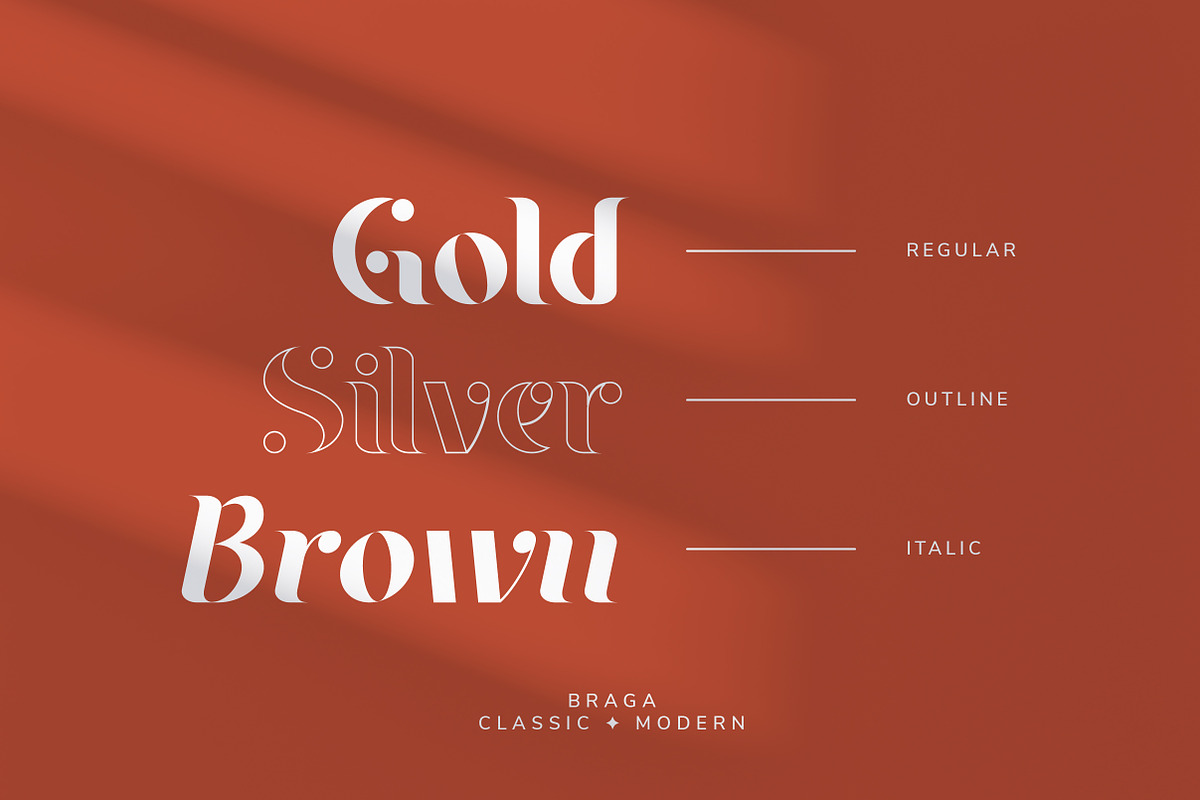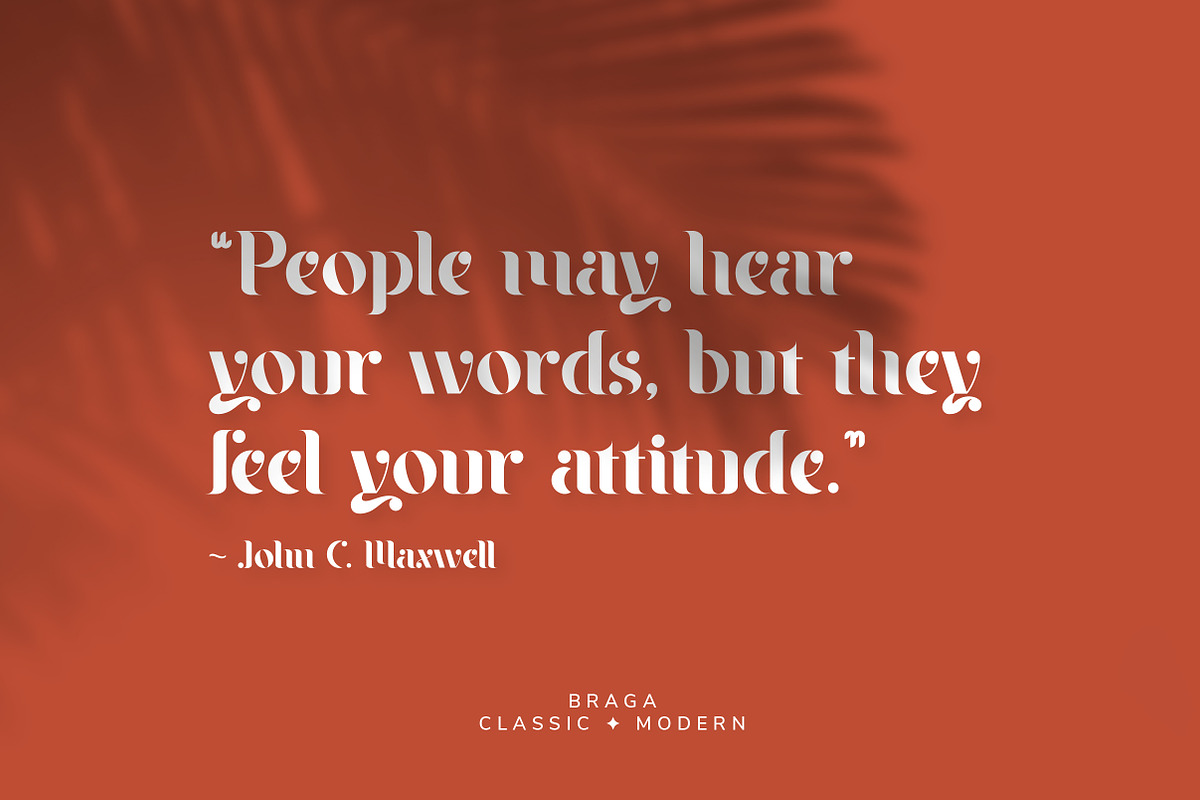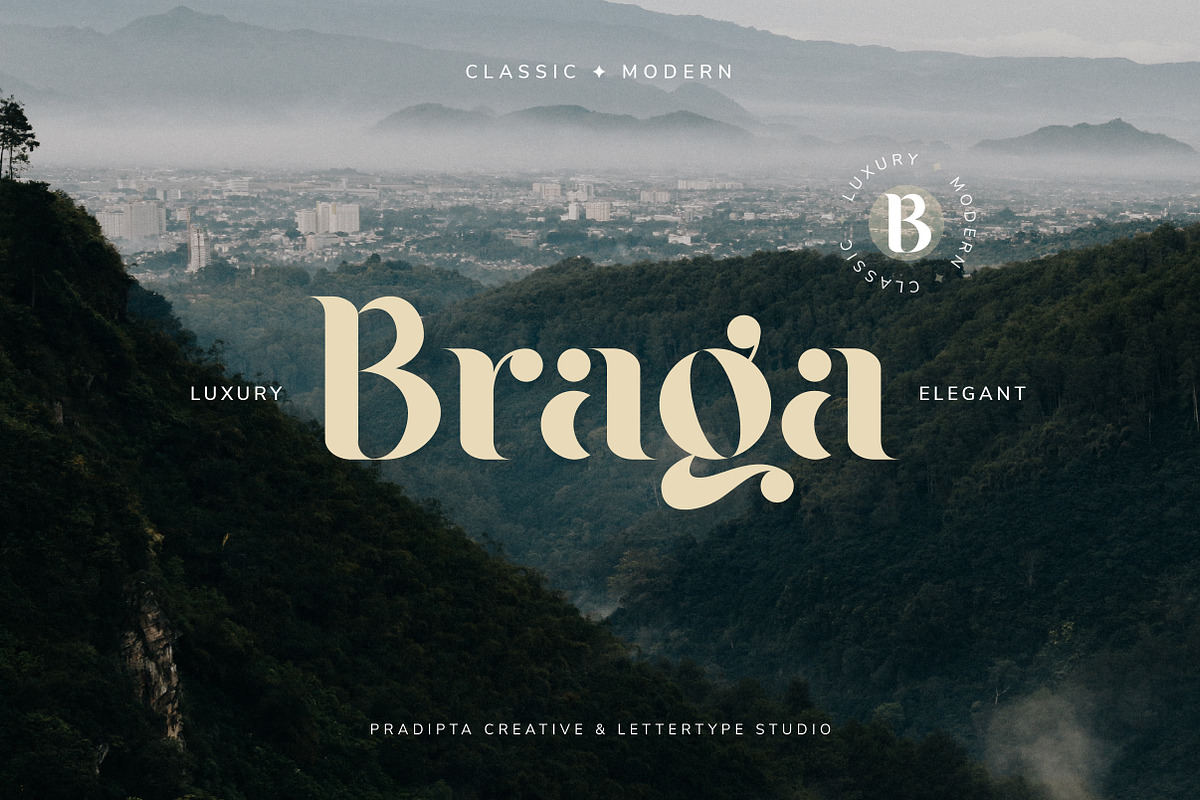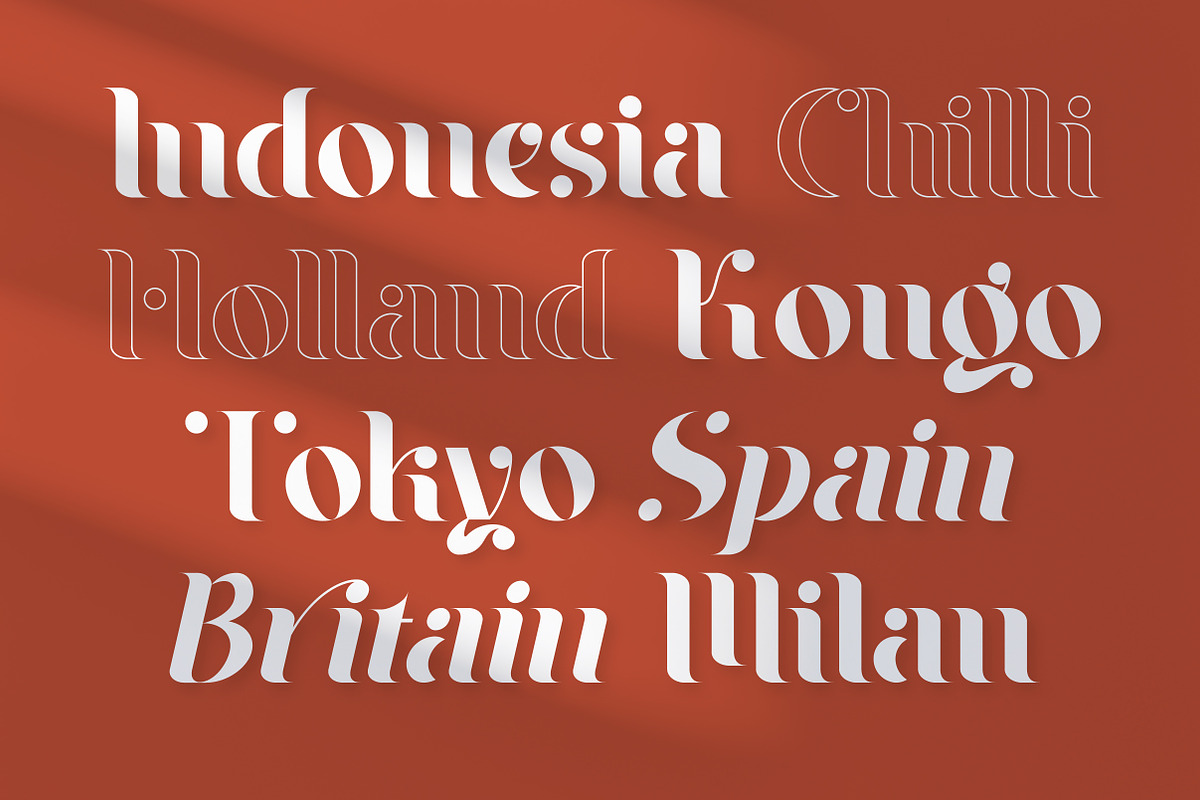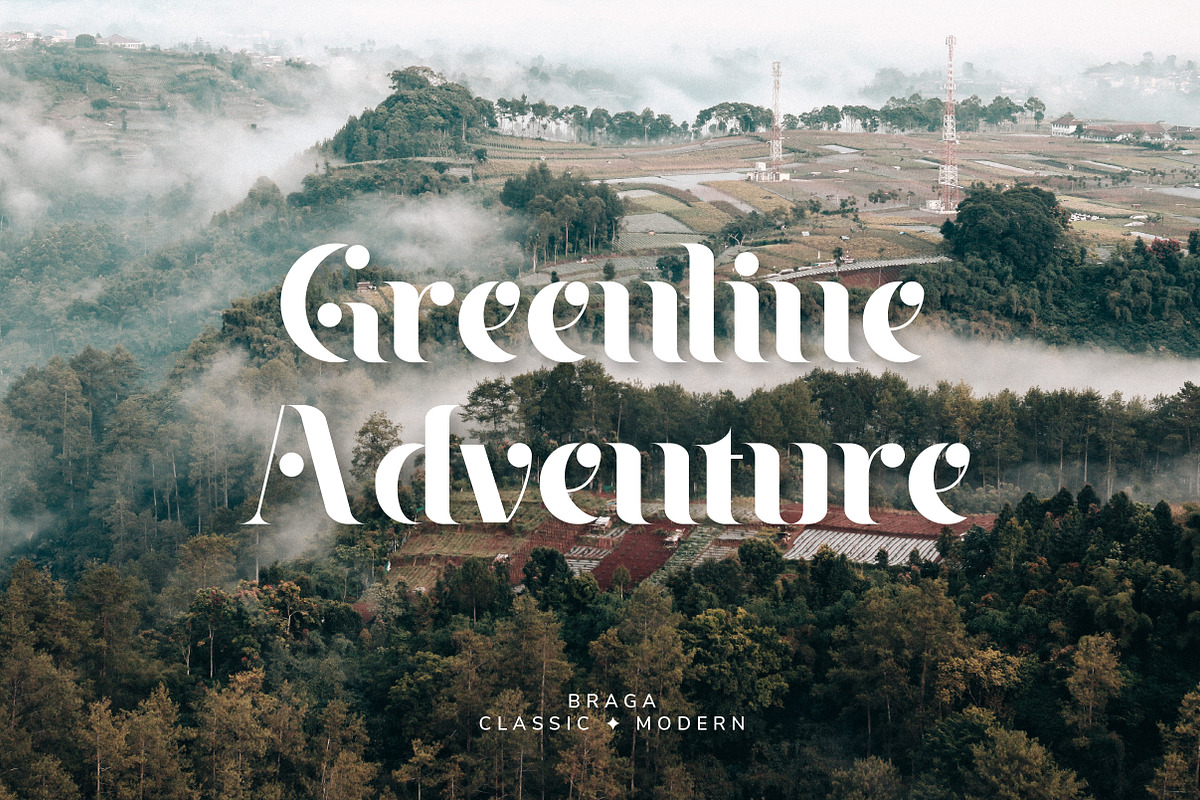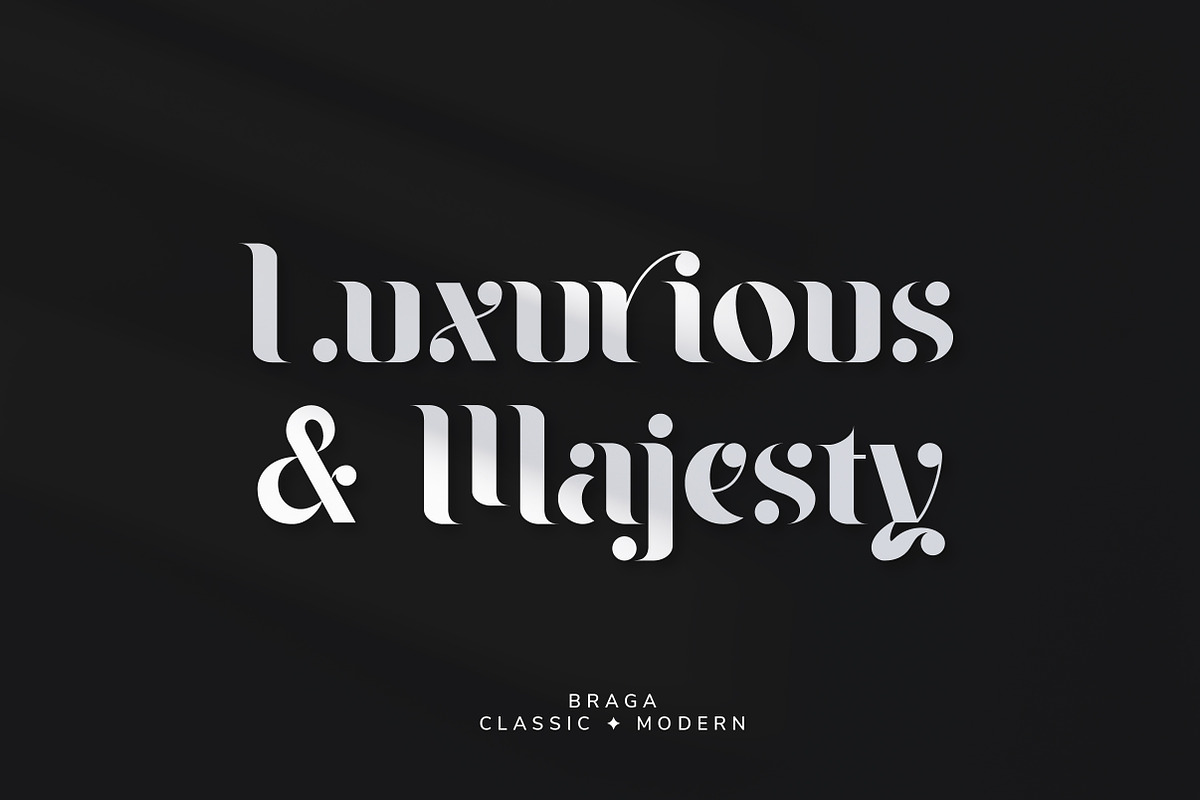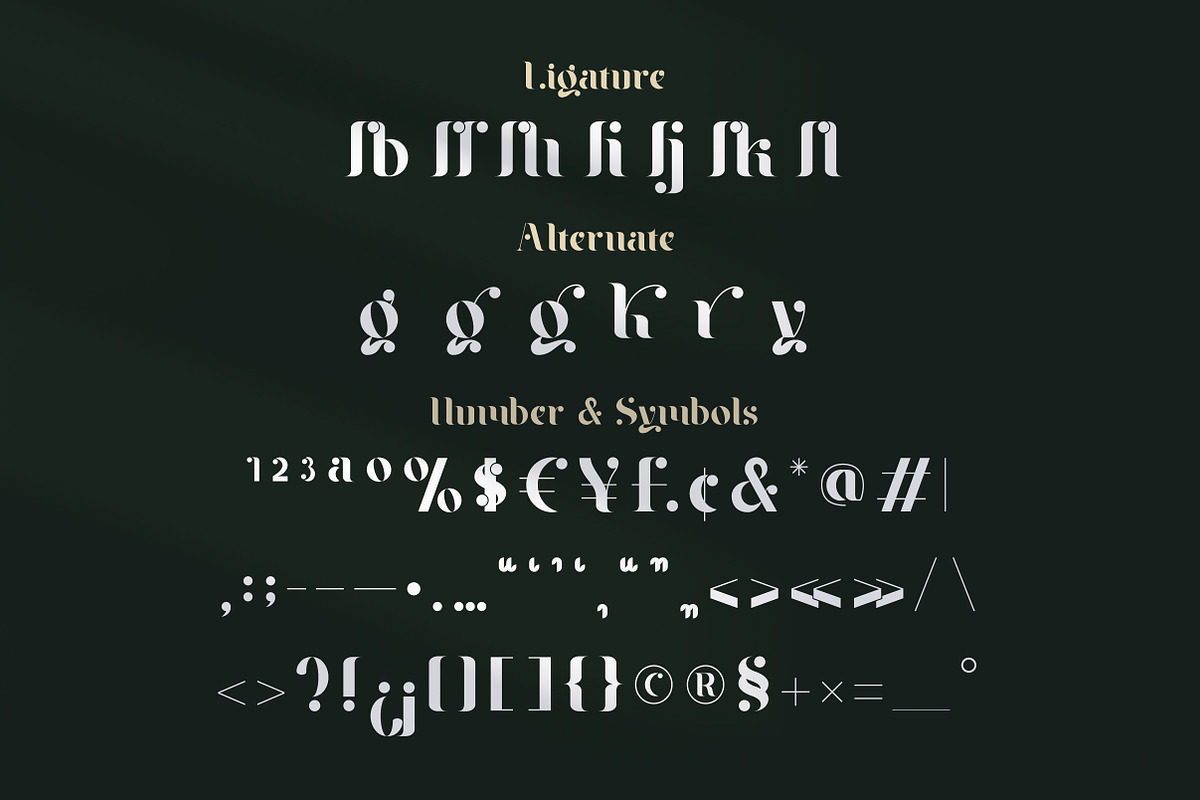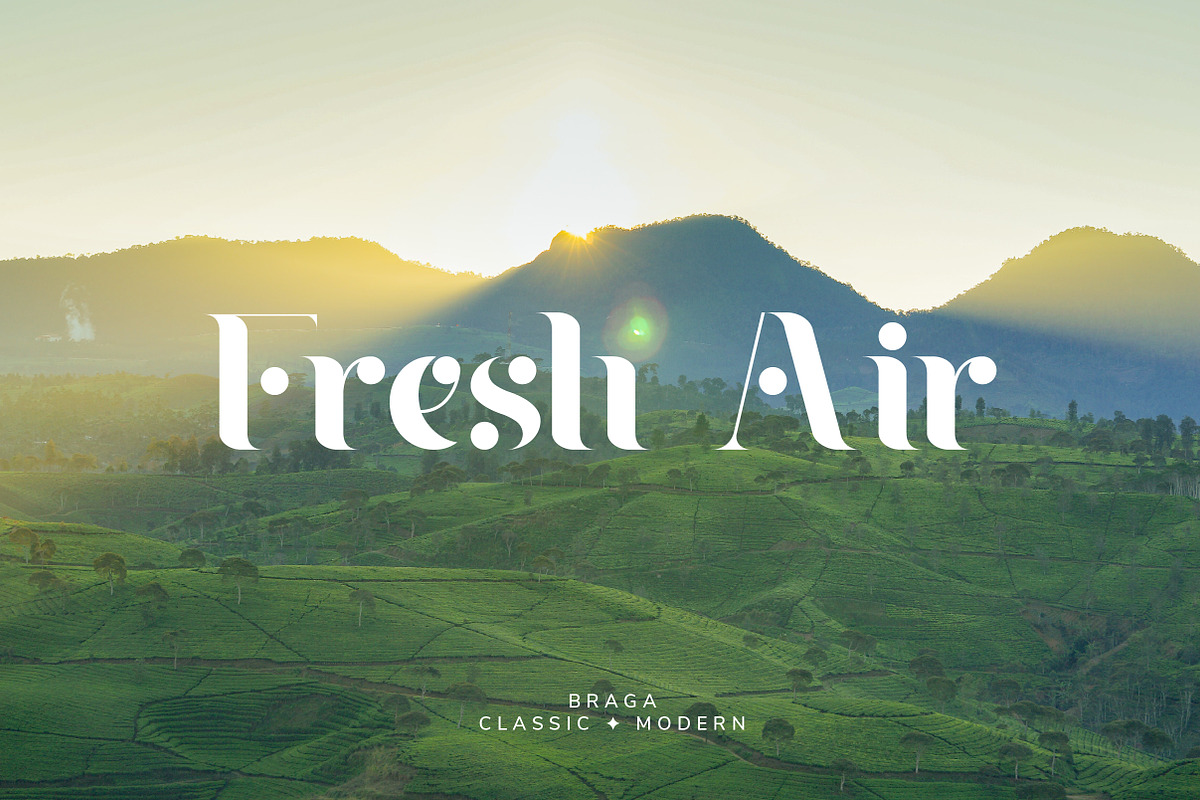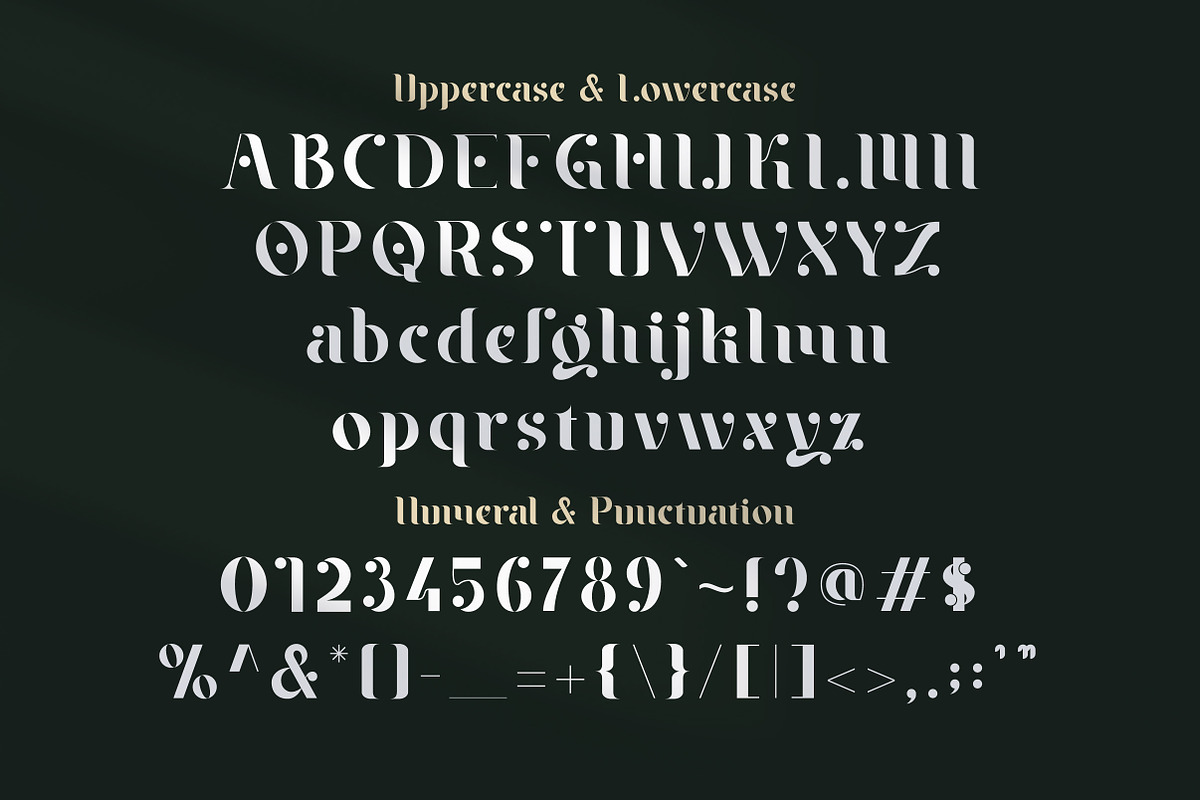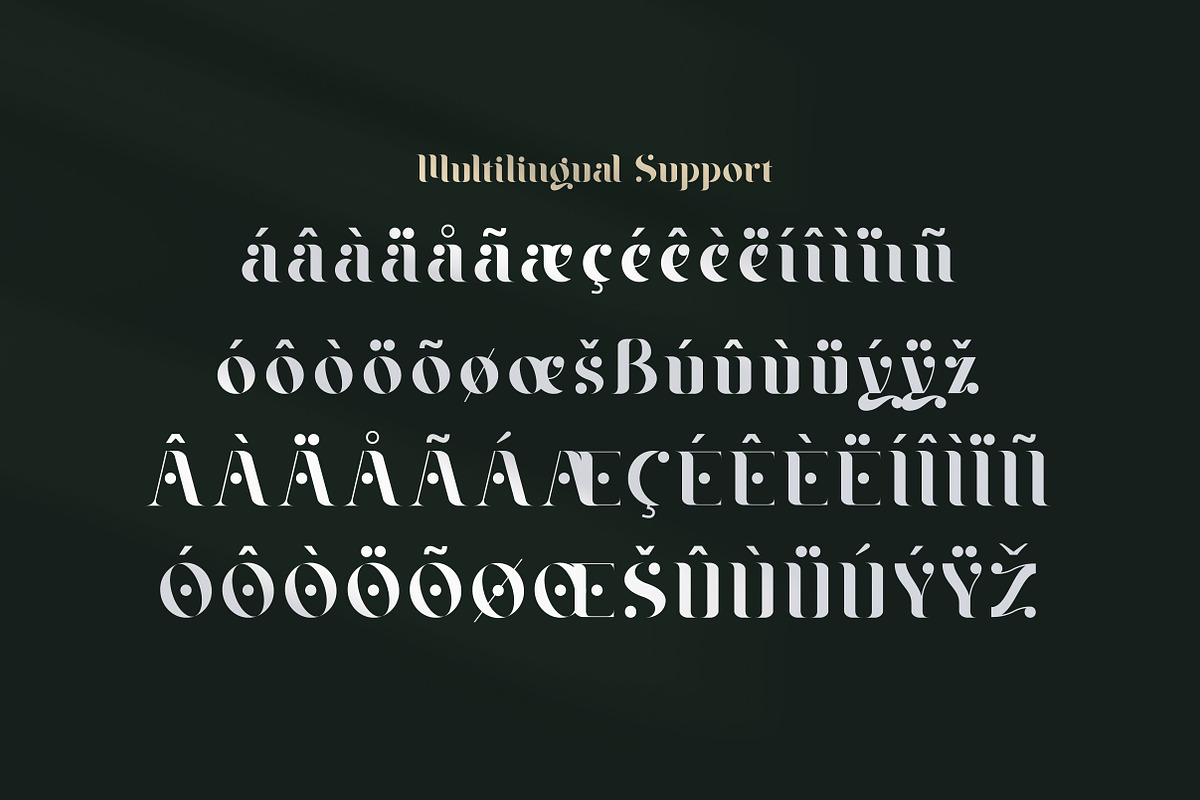
Braga Serif - Classic & Modern
Braga or Braga Street is the name of a main street in the city of Bandung, Indonesia. The name of this street is well known since the reign of the Dutch East Indies. Until now, the name of the street is still maintained as one of the mascots and a tourist attraction in the city of Bandung which was formerly known as Paris van Java. With this same name, my hope is to try to illustrate the beauty of Braga Street and Bandung in this serif font.
Braga is a serif font with modern, classic or vintage style. This font will be perfect for logo design, branding, clothing, signage, posters, wedding invitations and so much more! My goal in creating this font was to create a mix of serif fonts with modern and classic styles, which will help your project to be more perfect and beautiful. Don't Miss Out!
Braga Comes With:
- Lowercase and Uppercase
- Stylistic Ligature
- Braga Font Style (3 style, Regular, Italic, & Outline)
- Multiple Languages Supported
- Fix some glyphs to make "Braga" more beautiful (b, d, and p)
- Add and fix tons of overshoot in glyphs, to achieve an optical effect of being the same size; it compensates for inaccuracies in human visual perception
- Add new alternate (ff)
- Add new beautiful ligature (g.alt1, g.alt2, g.alt3, k.alt1, r.alt1, y.alt1) it's look like amazing pair with this glyphs (gi, ki, ri, or you can change the shor tail g & y) you can see the detail in the our new Braga image preview and try it out for your best project.